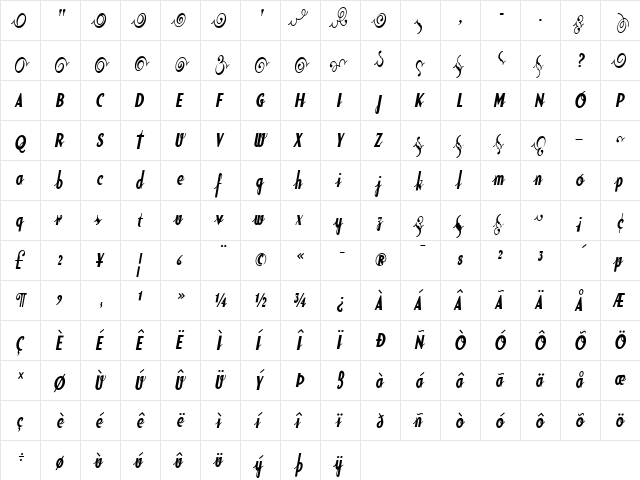
Soda Regular
Design Context for Soda Typeface
Soda is a composed and adaptable typeface that performs quietly and consistently across a wide range of design contexts.